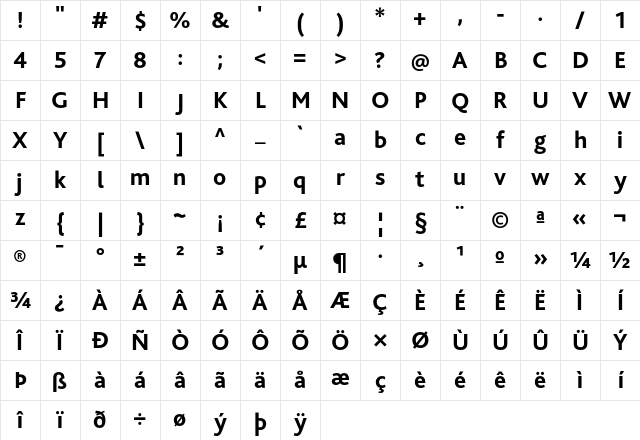
Bliss Pro ExtraBold
Foundry: JT Types Ltd,
Design Context for Bliss Pro
Bliss Pro is a composed and adaptable typeface that performs quietly and consistently across a wide range of design contexts. Its bold stroke weight gives it real presence on the page.
Who designed the Bliss Pro ExtraBold font?